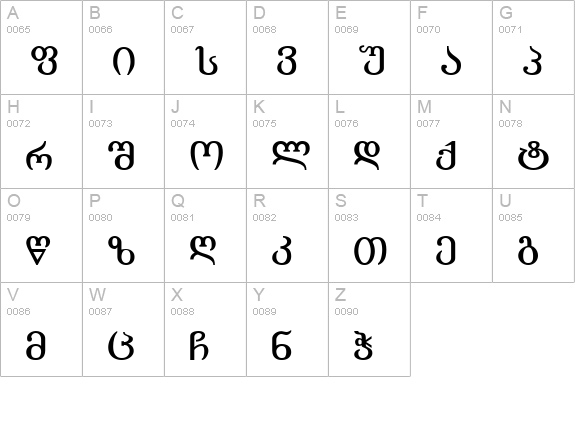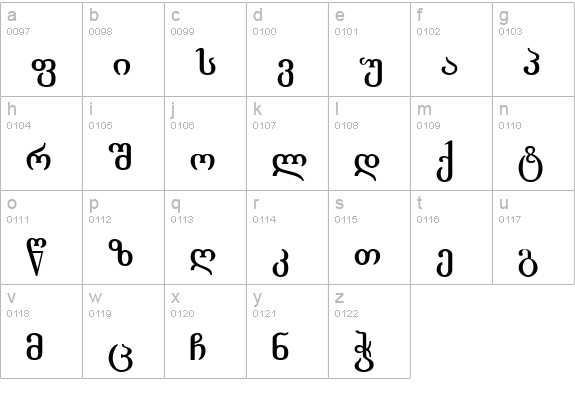
Academiury-ITV Bold Font Details
Academiury-ITV Bold is a strong, high-contrast variant in the Academiury typeface family \xE2\x80\x94 well suited to headlines, attention-grabbing titles, and strong calls-to-action.
Academiury-ITV Bold font is a striking and modern typeface that exudes confidence and sophistication. Its bold design makes it perfect for headlines, titles, and other prominent text elements. The sharp edges and clean lines of this font give it a sleek and professional look that is sure to make your design stand out. This font is freely available to download at FontsMarket.com, making it easily accessible for designers and creatives looking to enhance their projects with a touch of bold elegance. Whether you're working on a branding project, advertising campaign, or any other design endeavor, Academiury-ITV Bold font is a versatile choice that will help you make a bold statement. Elevate your designs with this eye-catching font today!